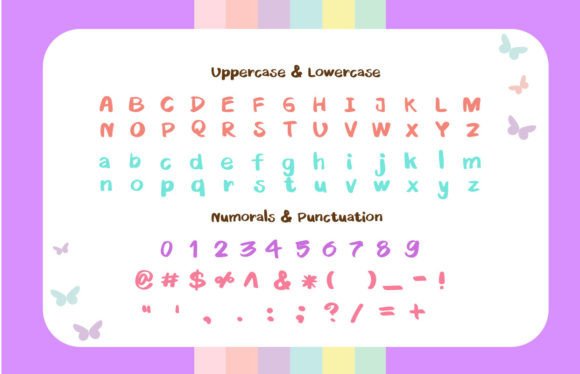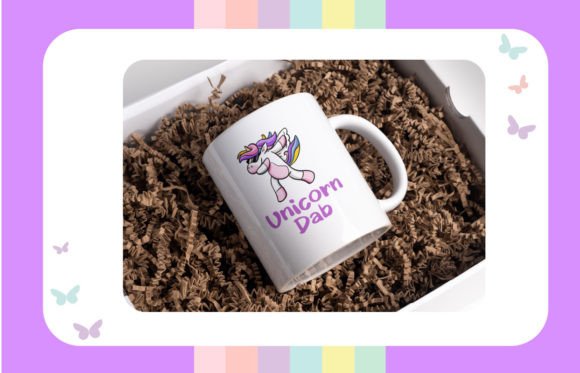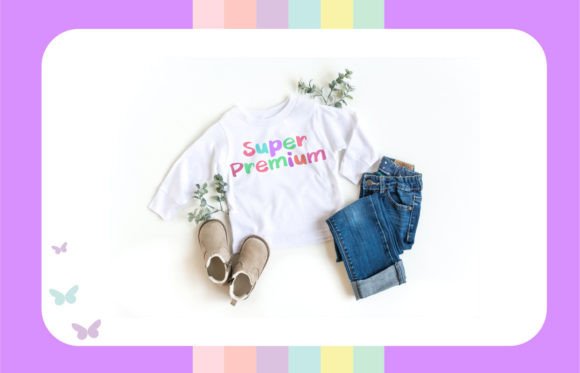
The Ultimate Guide to Easyhand Font: Adding a Playful Touch to Your Designs
I’ll never forget the time I was working on a fun project for a kids’ art class, trying to create an eye-catching invitation that would get the little ones excited. I had all the perfect graphics and colors, but something was missing – the right font. That’s when I stumbled upon Easyhand, a fun and easy handwritten font that instantly brought my design to life! In this article, I’ll share my experience with Easyhand, its features, and how to make the most of it in your designs.
What is Easyhand Font?
Easyhand is a fun and easy handwritten font suitable for playful and colorful artwork, arts and crafts for kids, invitations, t-shirts, social media, decorations, and so much more. Its carefree and bubbly personality makes it perfect for designs that need a friendly touch.
My Honest Review of Easyhand
Here’s what I love about Easyhand:
- ✨ Easy to read and understand, even in small sizes
- ✅ Highly versatile and adaptable to various design styles
- 💕 Fun and playful, adding a touch of whimsy to any design
- 🎨 Great for kids’ projects, arts and crafts, and other creative endeavors
While Easyhand is an excellent font, it’s not without its quirks:
- 🤔 Some letters may appear a bit irregular or uneven, which can be a deliberate design choice but might not appeal to everyone
- ⚠️ Limited availability of special characters or extended language support
The Backstory of Easyhand
Easyhand was designed with the intention of creating a friendly, approachable font that would bring joy to designs. The designer aimed to craft a font that would be easy to read, fun to use, and perfect for creative projects. While the exact story behind Easyhand may be unknown, its playful personality and versatility have made it a favorite among designers and crafters.
| Can I use Easyhand for kids’ educational materials? | Absolutely! Easyhand’s playful and easy-to-read design makes it perfect for kids’ educational materials, such as worksheets, activity sheets, and posters. |